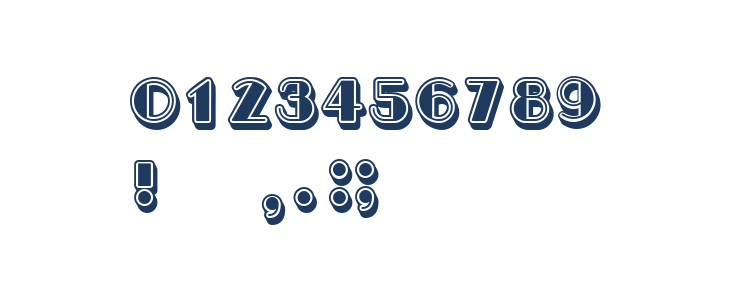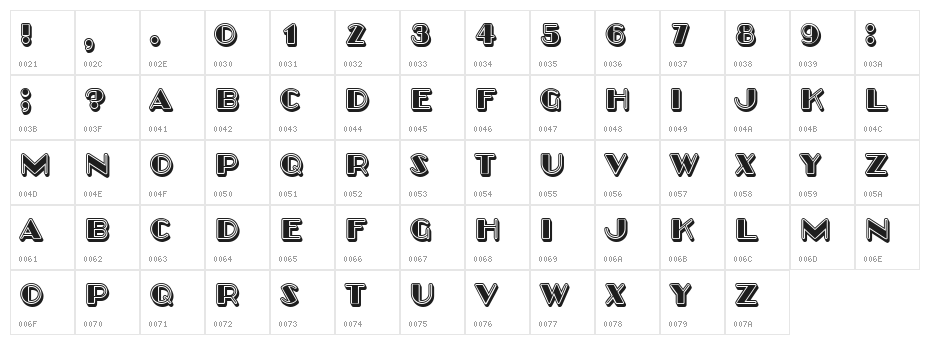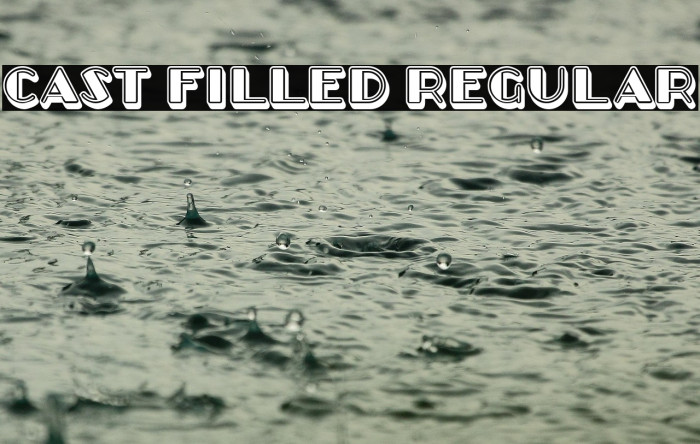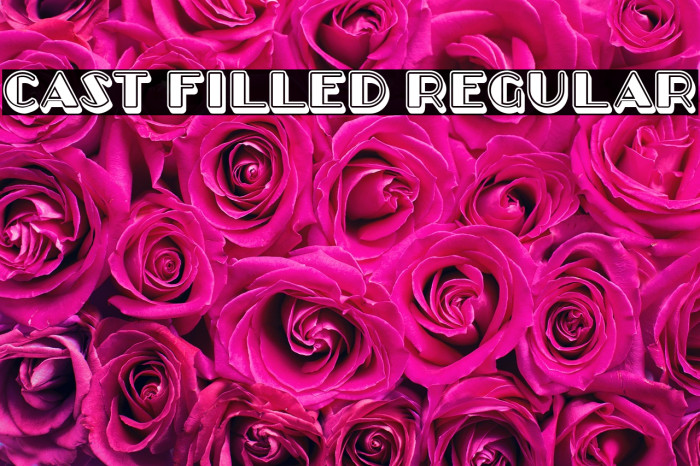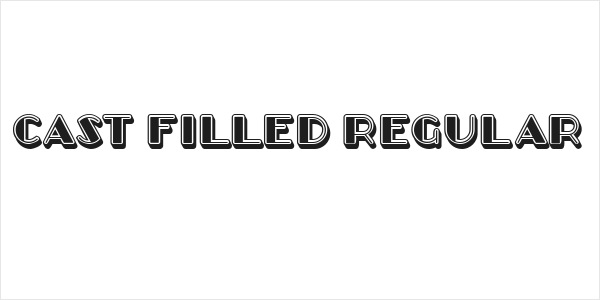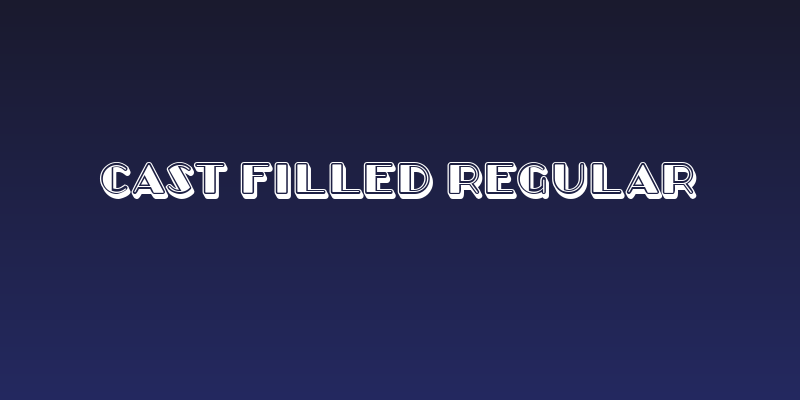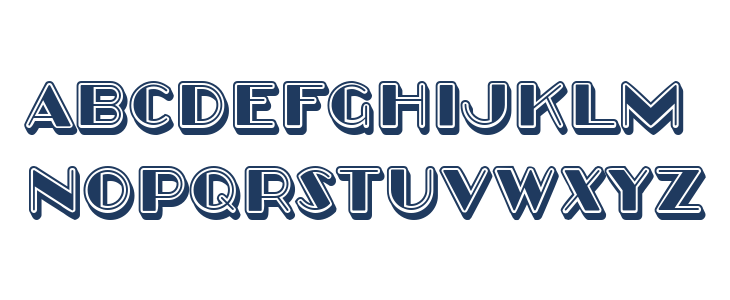
Cast Filled Regular Font
Cast Filled Regular Description
This font features a bold, filled design with a distinct outline that gives it a three-dimensional appearance. The characters are uppercase and numerals, with a consistent thickness throughout. The style is modern and eye-catching, making it suitable for attention-grabbing designs. The letters have a geometric structure, with sharp angles and clean lines, contributing to a contemporary aesthetic. The spacing between characters is normal, ensuring readability while maintaining a compact look. The font's high contrast between the filled interior and the outlined edges enhances its visual impact.